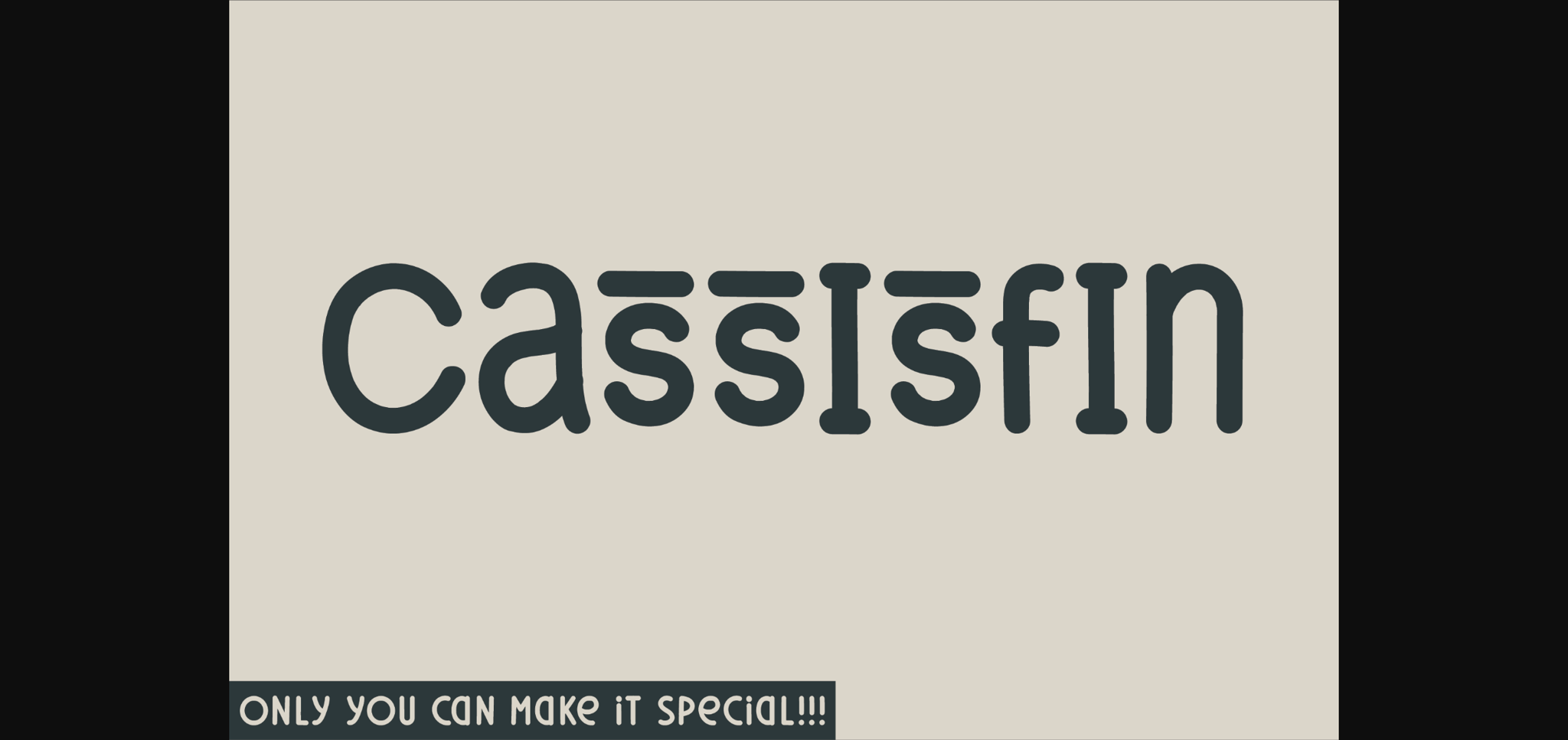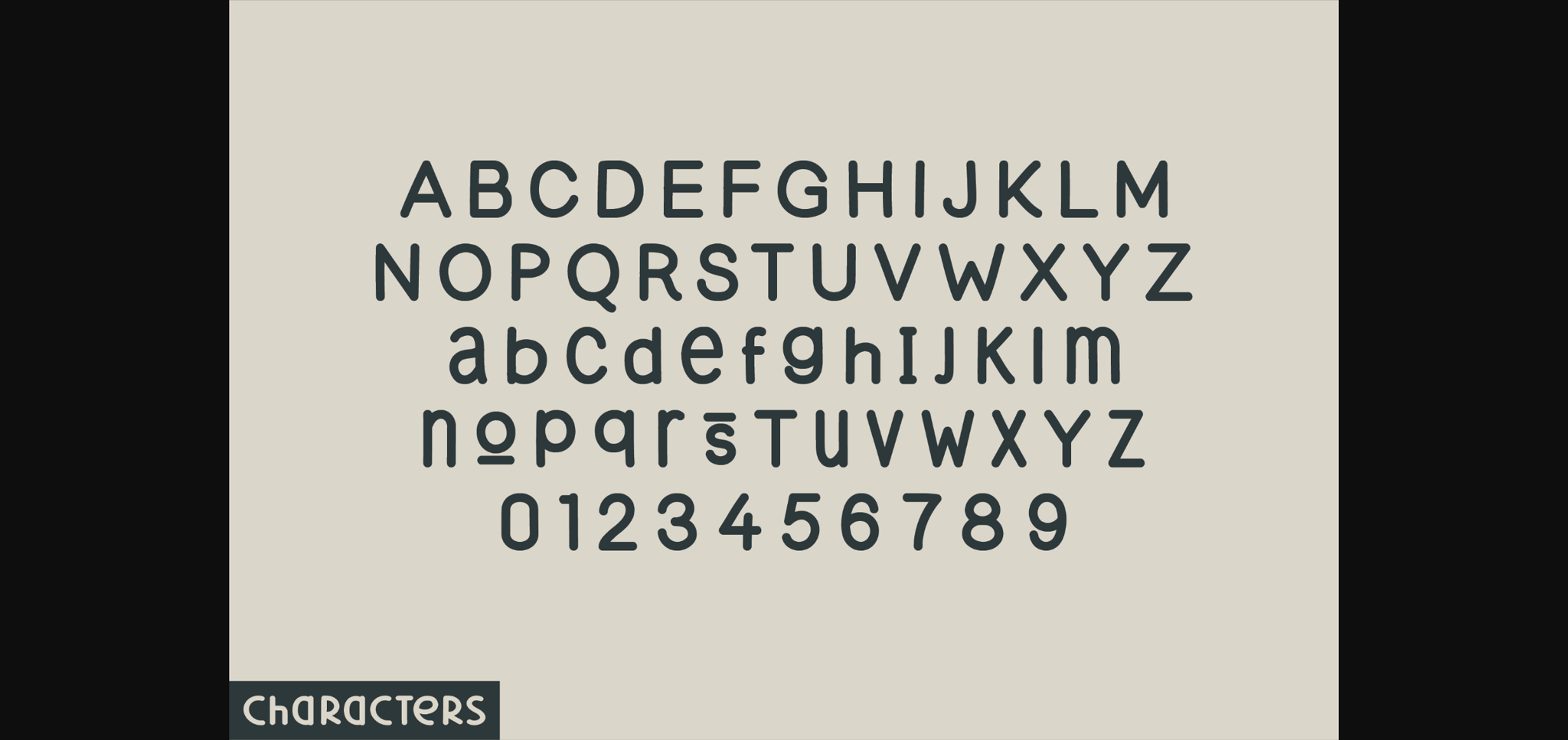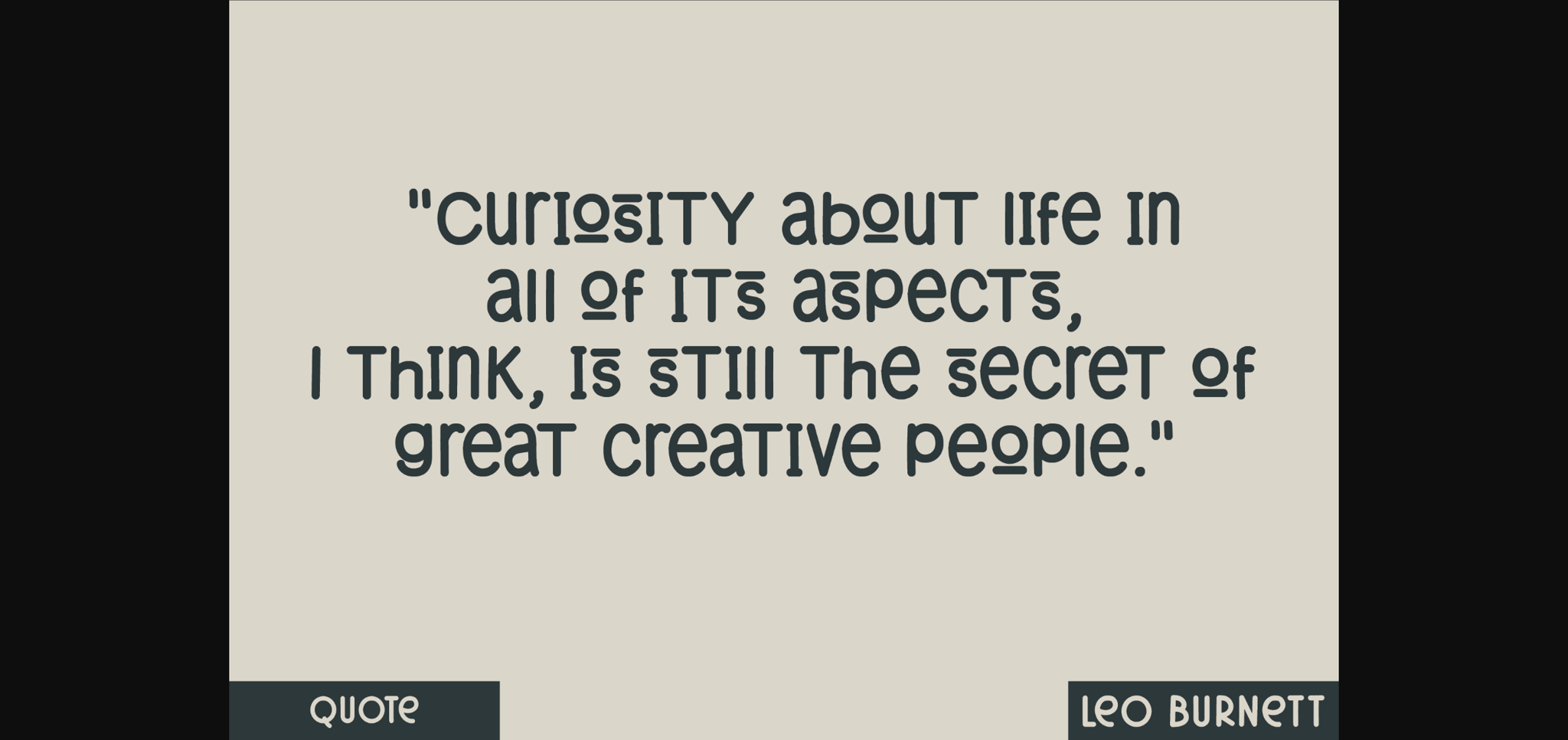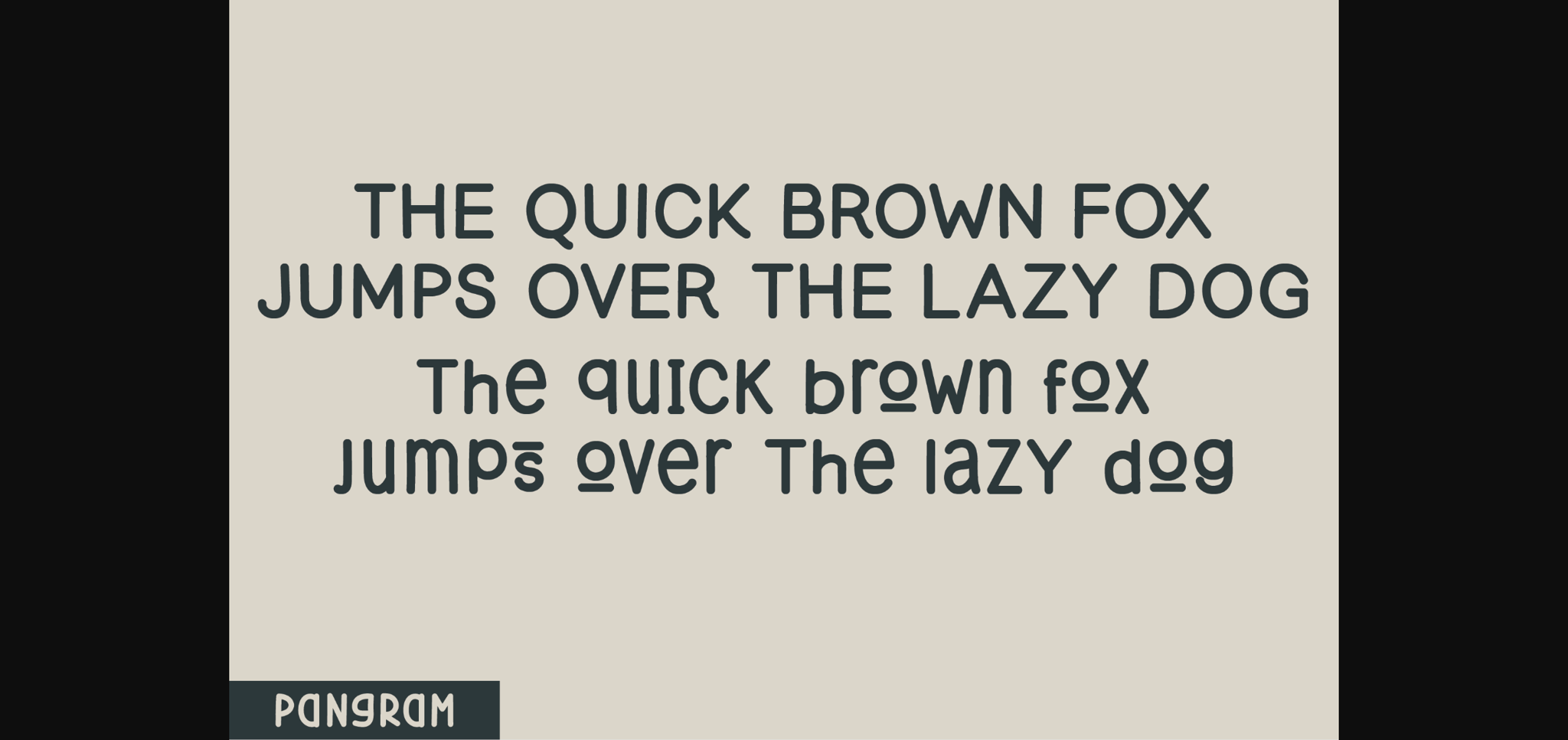
About Cassisfin Font
Introducing Cassisfin, a striking display font boasting streamlined sans serif styling and a truly distinctive appeal. Every letter in Cassisfin subtly features a round-tipped design, imparting a sweet, inviting aesthetic. Imbued with a whimsical and charming aura, Cassisfin breathes life into designs, making them convey messages of joy and beauty effortlessly. Whether you’re looking to communicate an uplifting sentiment, or simply add a touch of graceful charm, Cassisfin is an unbeatable choice that adds a perfect dash of elegance to your design toolbox.